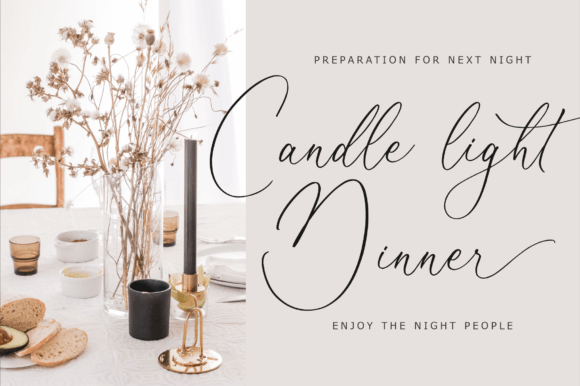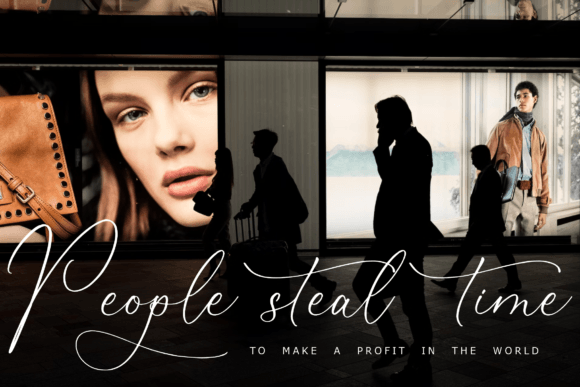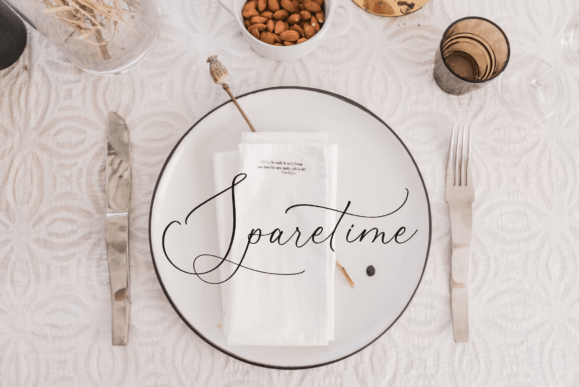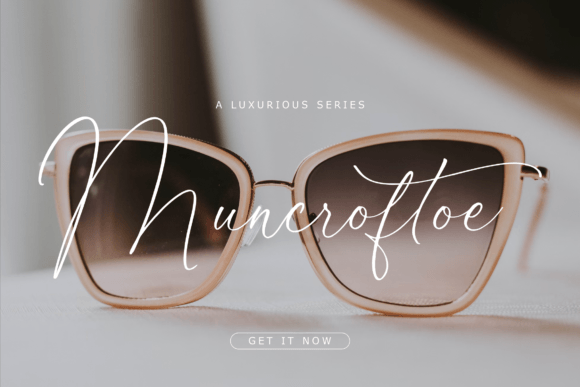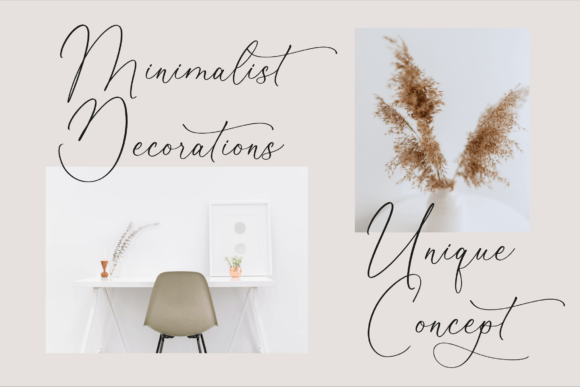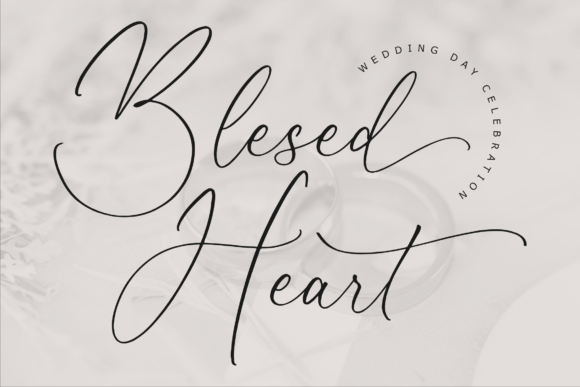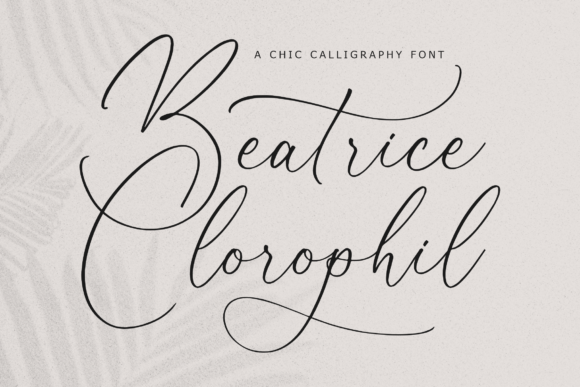
Discover the Elegance of Beatrice Clorophil Font: Elevate Your Designs with Precision and Style
In the vast universe of typography, certain fonts stand out for their unique blend of elegance, versatility, and precision. Among these, the Beatrice Clorophil Font emerges as a dazzling script font that has captured the attention of designers and crafters alike. This font is not just a collection of letters; it’s a tool that can transform your creative projects with its neat craftsmanship and highly detailed features. Whether you’re working on a branding project, a wedding invitation, or a digital platform, Beatrice Clorophil promises to be a wonderful asset to your font library.
The Essence of Beatrice Clorophil Font
Beatrice Clorophil is meticulously designed to bring a touch of sophistication and charm to any design project. Its script style is both elegant and fluid, making it perfect for projects that require a personal and luxurious feel. The font’s neat and highly detailed craftsmanship ensures that it remains legible and impactful, even at various sizes and resolutions. This versatility is crucial for designers who work on a wide range of projects, from print materials to digital content.
Why Choose Beatrice Clorophil Font?
There are several reasons why Beatrice Clorophil stands out in the world of typography:
- Versatility: This font can be used across various design projects, including but not limited to, logos, branding materials, invitations, and digital content. Its adaptability makes it a valuable addition to any designer’s toolkit.
- Elegance: The script style of Beatrice Clorophil adds a touch of elegance and sophistication to any design. It’s perfect for projects that require a classy and refined look.
- Legibility: Despite its intricate details, Beatrice Clorophil maintains high legibility, ensuring that your message is conveyed clearly and effectively.
- Uniqueness: In a sea of script fonts, Beatrice Clorophil offers a unique blend of traditional and modern elements, making it a distinctive choice for designers looking to stand out.
Applications of Beatrice Clorophil Font
The applications of Beatrice Clorophil are vast and varied. Here are a few examples of how this stunning font can elevate your design projects:
- Branding and Logos: Use Beatrice Clorophil to create memorable logos and branding materials that exude elegance and sophistication.
- Wedding and Event Invitations: Add a touch of luxury and personalization to your wedding or event invitations with this beautiful script font.
- Digital Content: Enhance your digital platforms, such as websites and social media graphics, with the refined and classy look of Beatrice Clorophil.
- Packaging and Product Design: Stand out in the market with packaging and product designs that feature the unique and elegant style of this font.
Tips for Using Beatrice Clorophil Font Effectively
To maximize the impact of Beatrice Clorophil in your designs, consider the following tips:
- Pair with Complementary Fonts: Beatrice Clorophil pairs well with clean sans-serif fonts for body text, creating a balanced and harmonious design.
- Adjust Letter Spacing: For optimal readability, especially in longer texts, adjust the letter spacing to ensure your text is easy to read.
- Use in Headers and Titles: Reserve Beatrice Clorophil for headers and titles where you want to make a statement, and use a more straightforward font for the body text.
Beatrice Clorophil Font is a remarkable addition to the world of typography, offering designers and crafters a tool that combines elegance, versatility, and precision. Its potential to enhance any creation makes it a valuable asset for professionals and hobbyists alike. Whether you’re looking to elevate your branding, add a touch of sophistication to your digital content, or create stunning invitations, Beatrice Clorophil is sure to exceed your expectations. Embrace the elegance and versatility of Beatrice Clorophil Font in your next design project and experience the difference it can make.